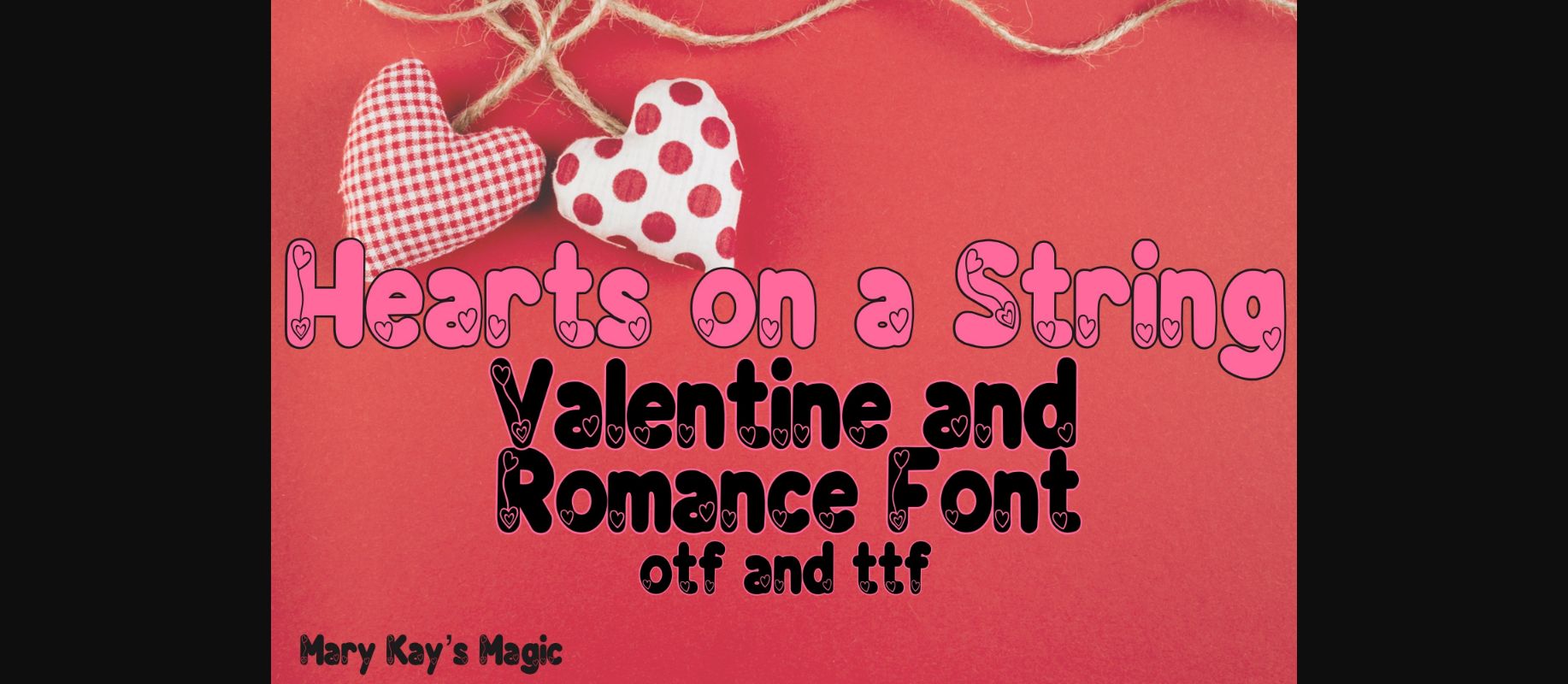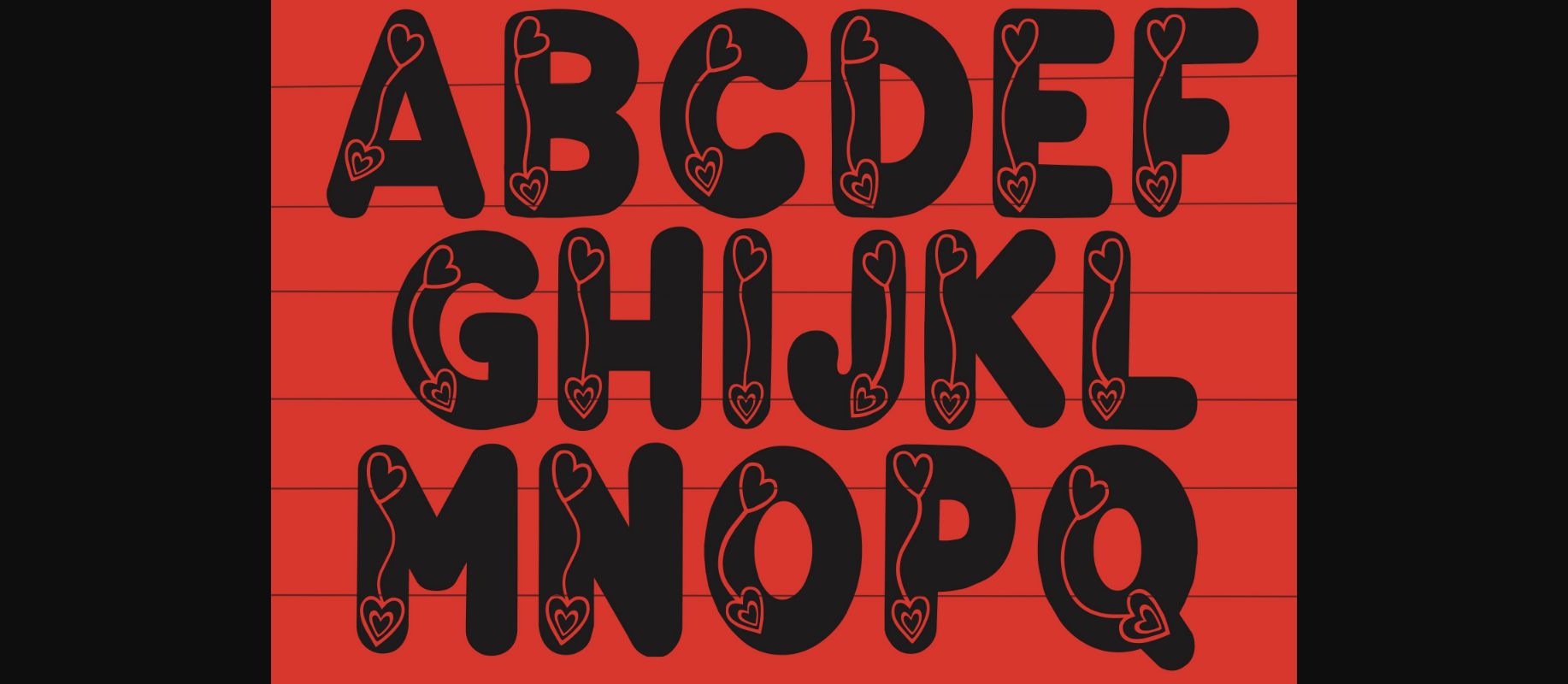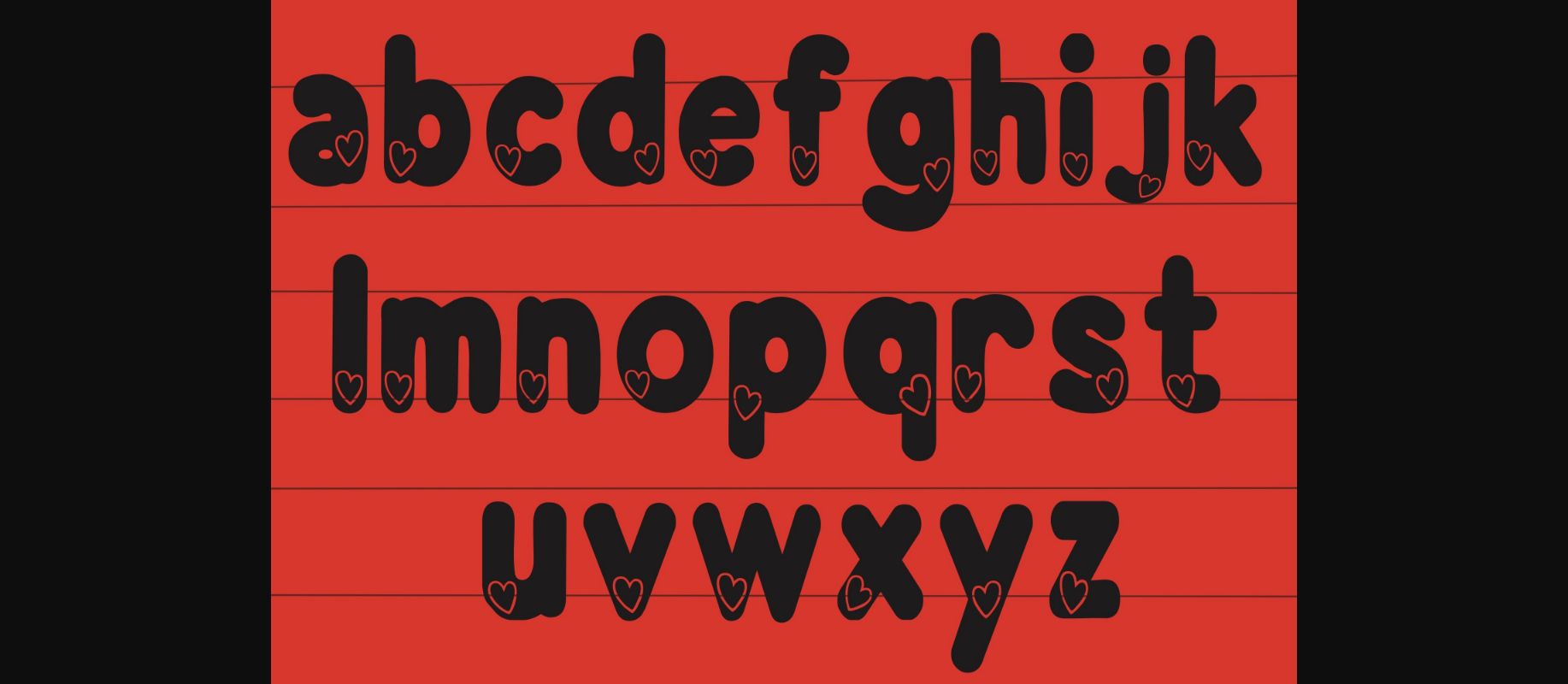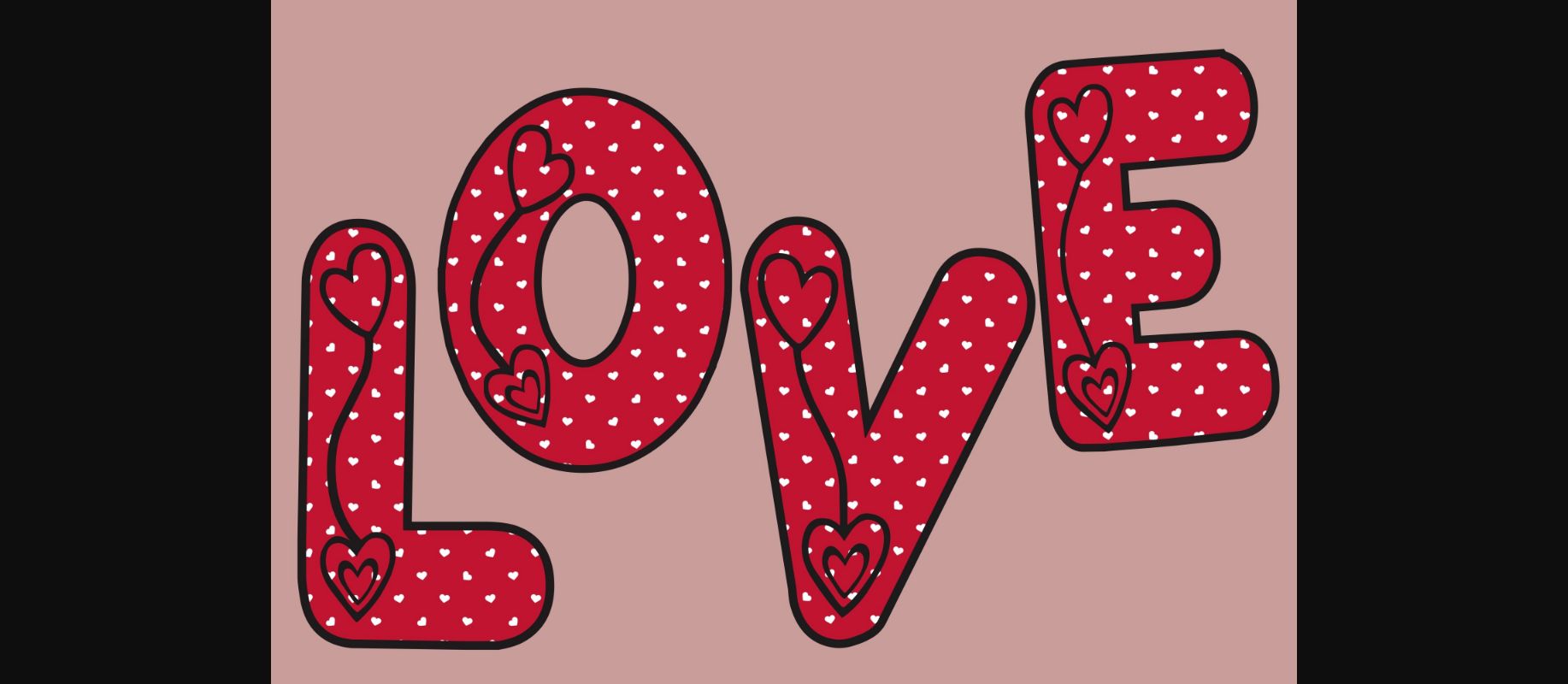
About Hearts on a String Font
Introducing “Hearts on a String,” the perfect font for Valentine’s Day, an anniversary, an engagement, a birthday, or any other romantic celebration. It features hearts linked by strings. Add a color to it, or place a clipping mask on top and add an image or pattern.
Use this font any time you want to add a heart letter, word, or phrase to a greeting card, Valentine’s card, postcard, envelope, planner, scrapbook, journal, chapbook, or memory book.